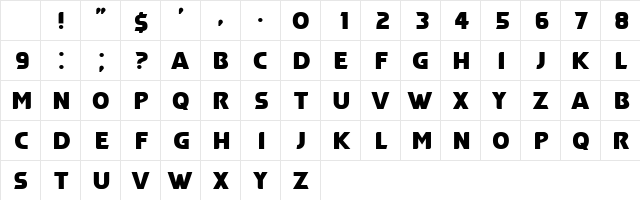
Kotatsu Book Regular
Design Context for Kotatsu Book
Kotatsu Book is a composed and adaptable typeface that performs quietly and consistently across a wide range of design contexts.
Pro Tip: Use Kotatsu Book in both headline and body roles to test its range before committing to a single application.